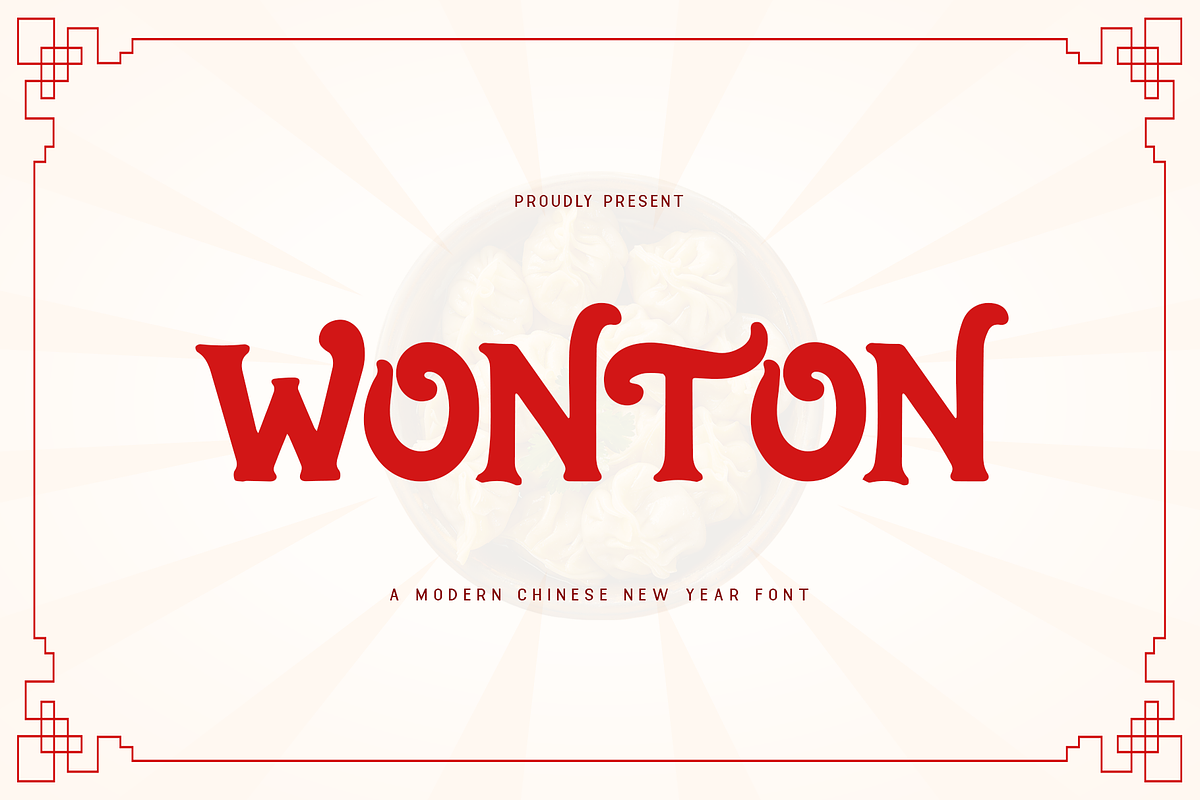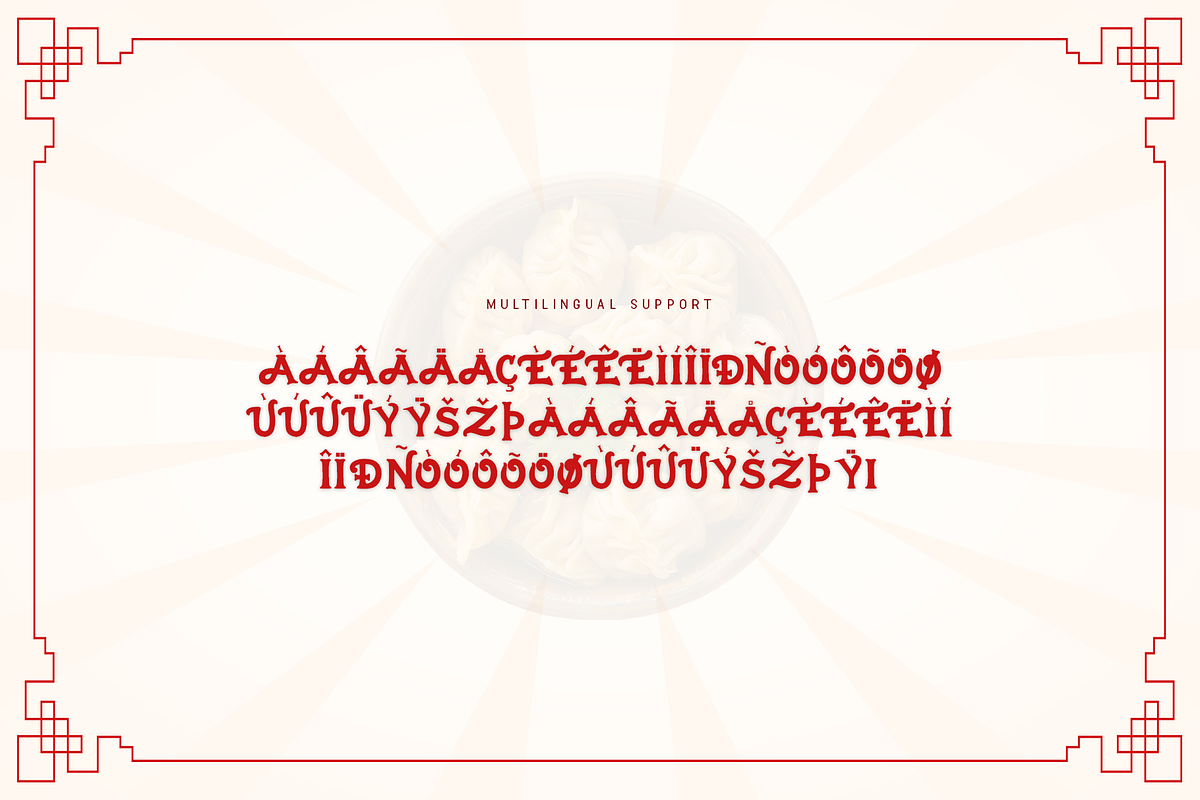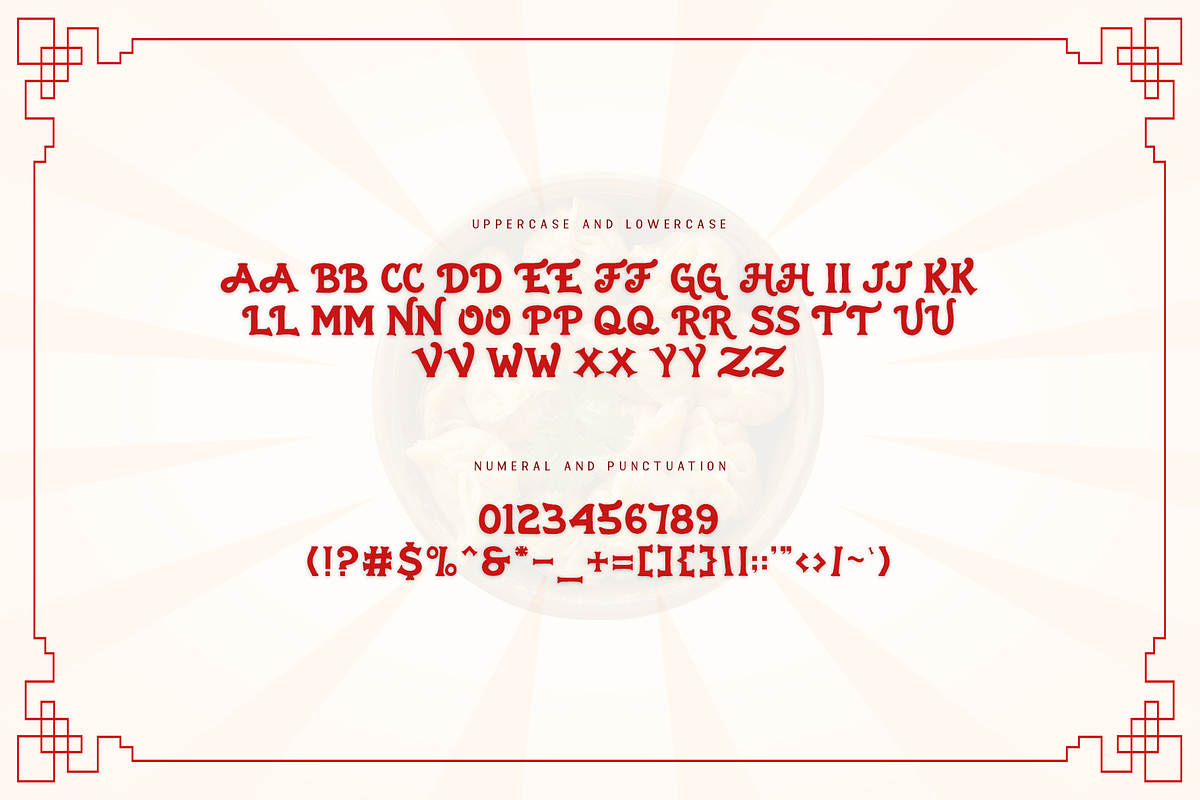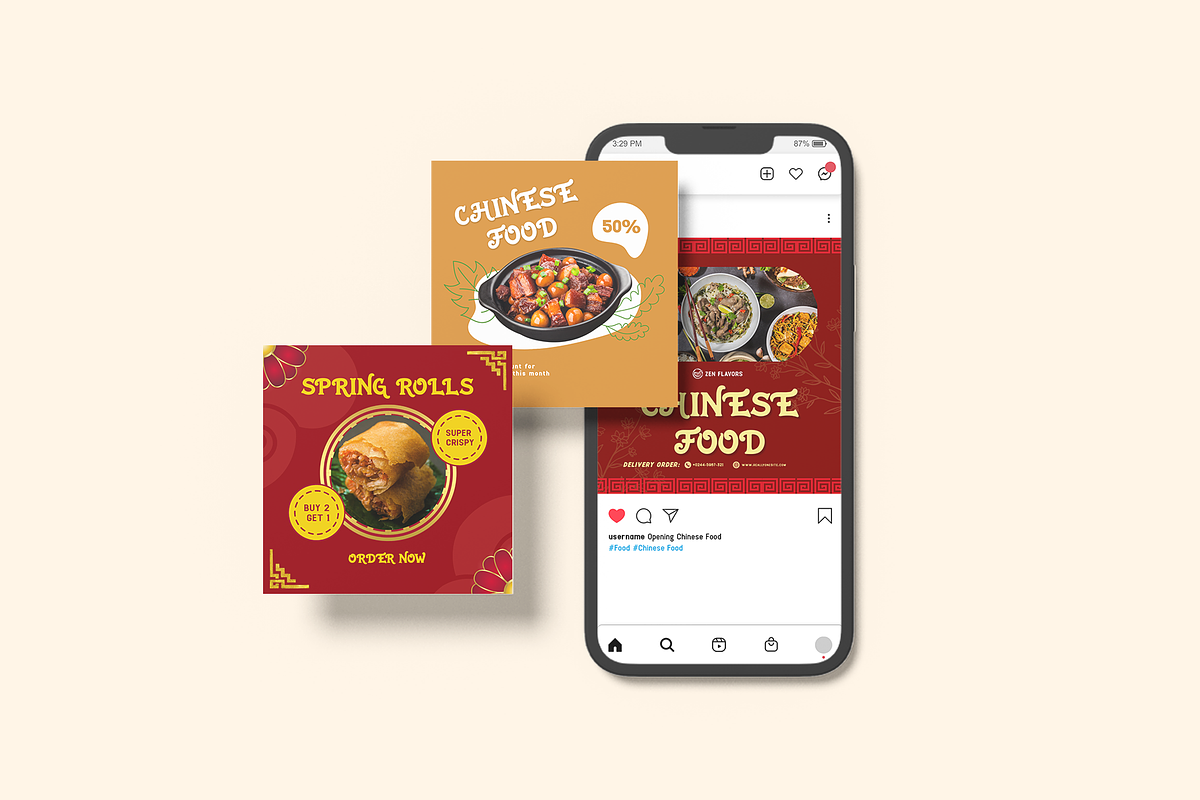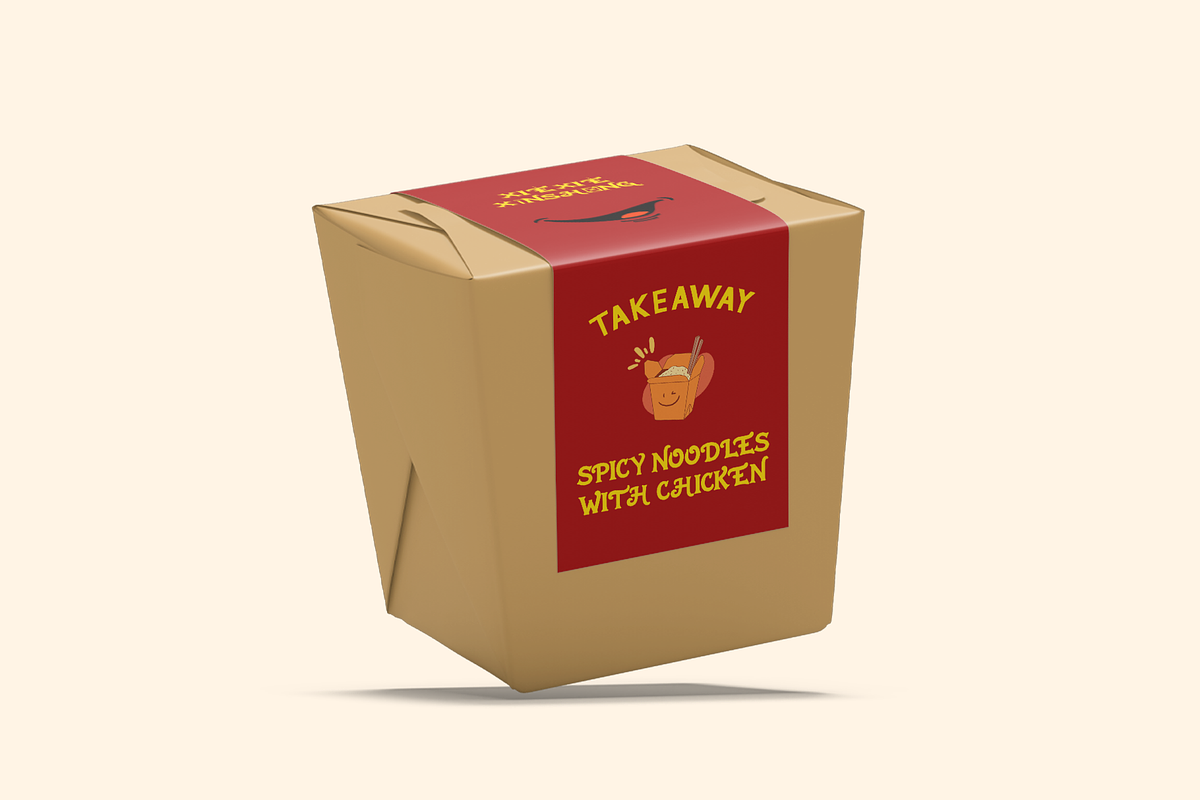
Wonton - Modern Chinese NewYear Font
Wonton - A Modern Chinese New Year Font
Celebrate the richness of Chinese culture with Wonton, a modern Chinese New Year font inspired by the iconic shapes of traditional Chinese dumplings. This typeface blends cultural charm with modern design, making it perfect for Lunar New Year celebrations.
With its rounded forms and bold lines, Wonton is ideal for event posters, festive invitations, food packaging, and branding. Its unique design evokes warmth, prosperity, and togetherness, key themes of the Chinese New Year.
Complete with a versatile character set, multilingual support, and a distinct festive aesthetic, Wonton is the font to bring cultural richness and modern flair to your designs.